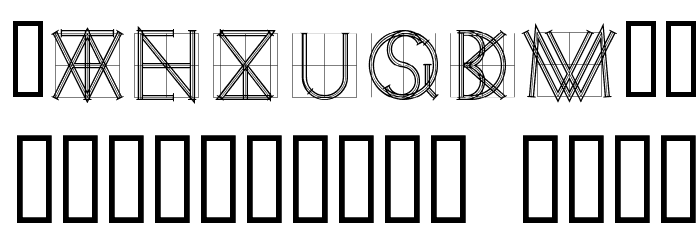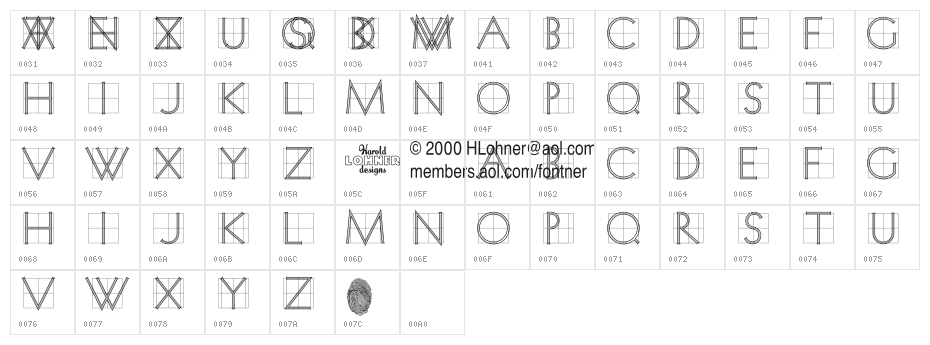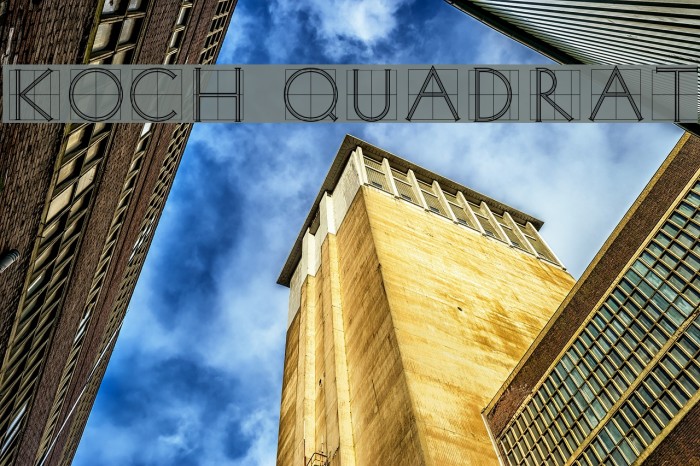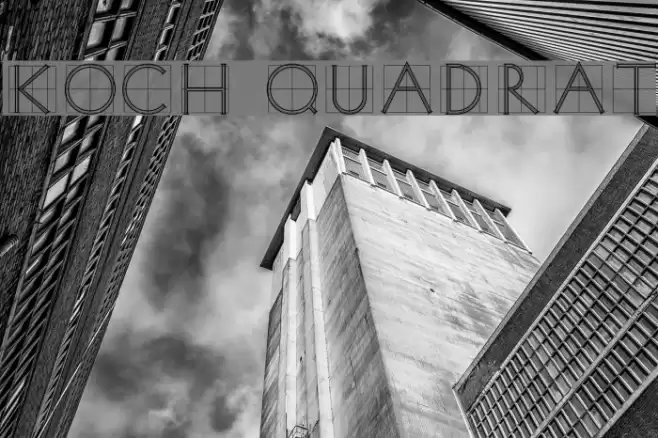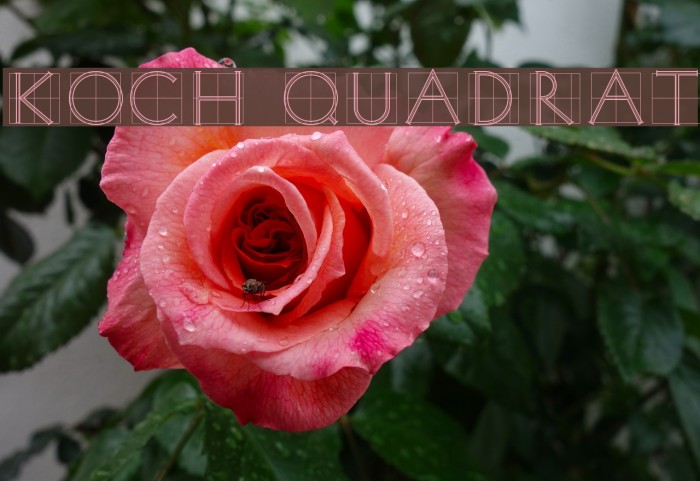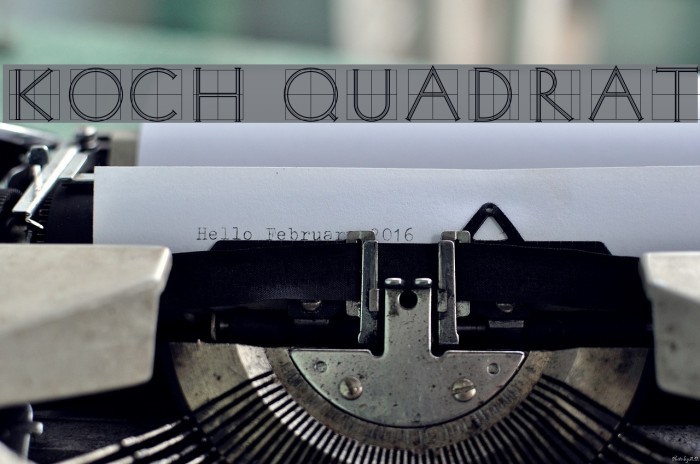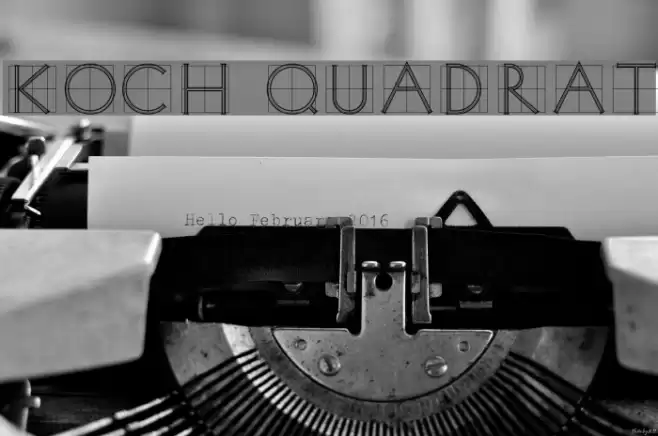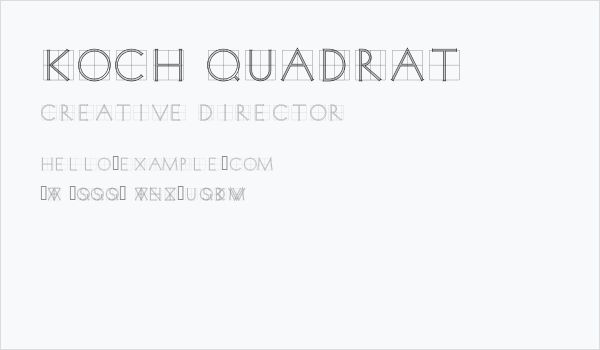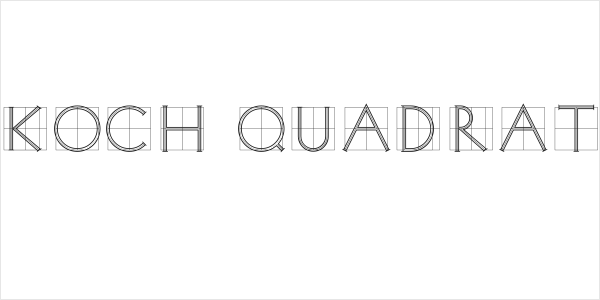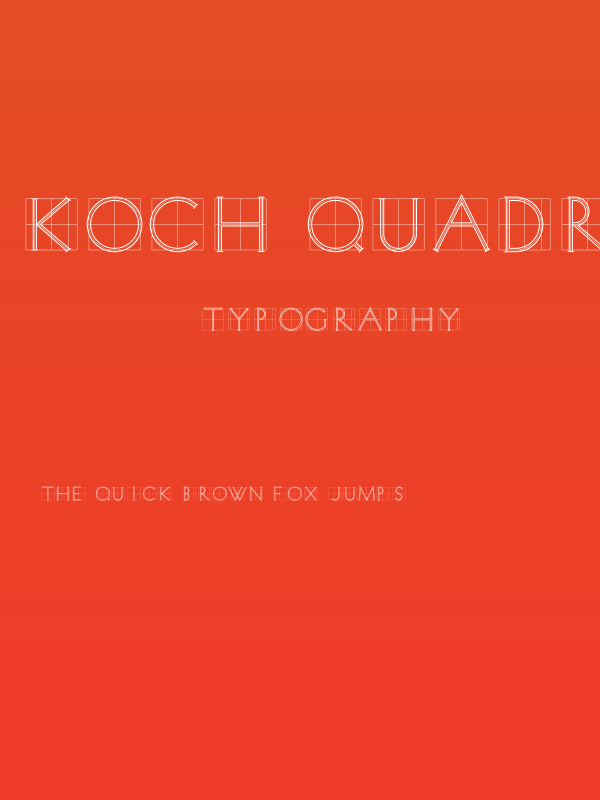
Koch Quadrat Font
Koch Quadrat Description
This font features a geometric, grid-based design with a strong architectural influence. Each character is constructed with precise lines and angles, creating a sense of structure and order. The uppercase letters are bold and commanding, while the lowercase letters maintain the same geometric precision. The numbers and special characters follow the same design principles, ensuring consistency throughout. The font's unique style makes it stand out, with a modern and innovative appearance that is both artistic and functional.
| Proposed Projects | Ideal for architectural designs, modern branding, innovative product packaging, and artistic posters. |